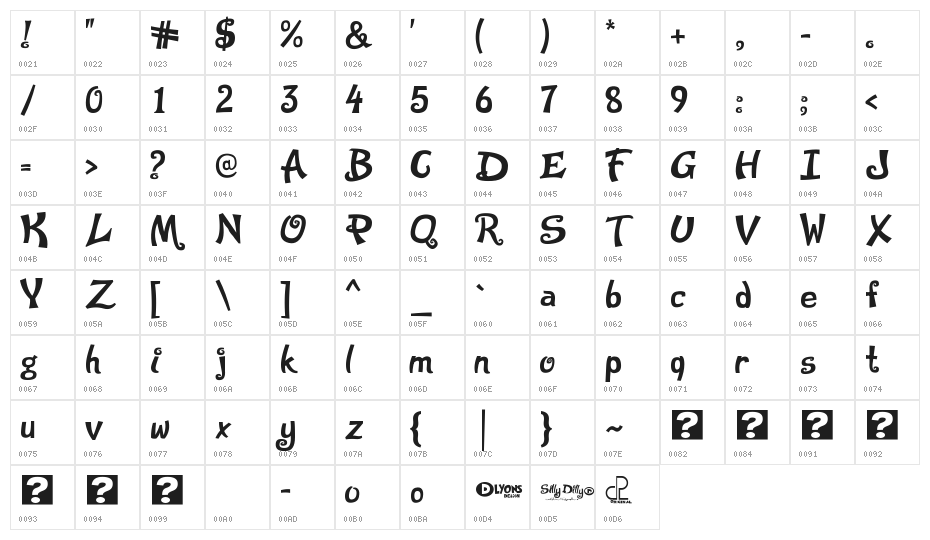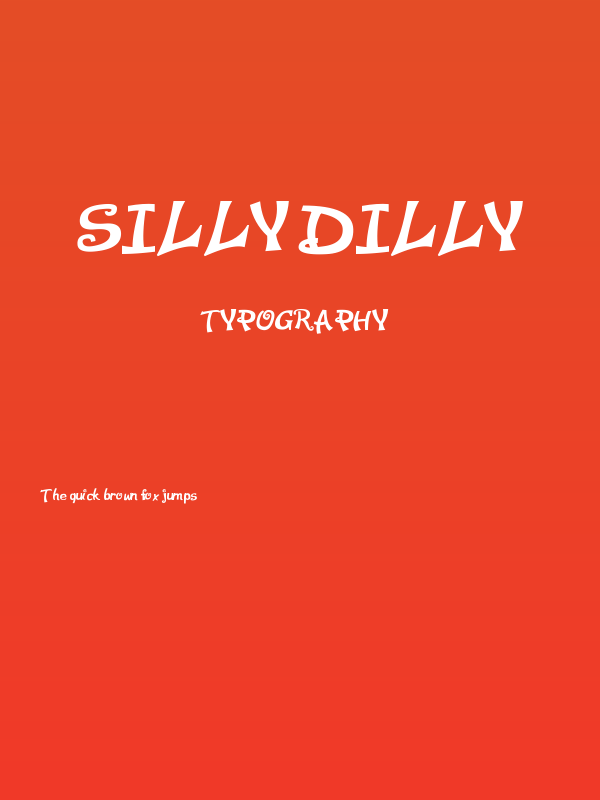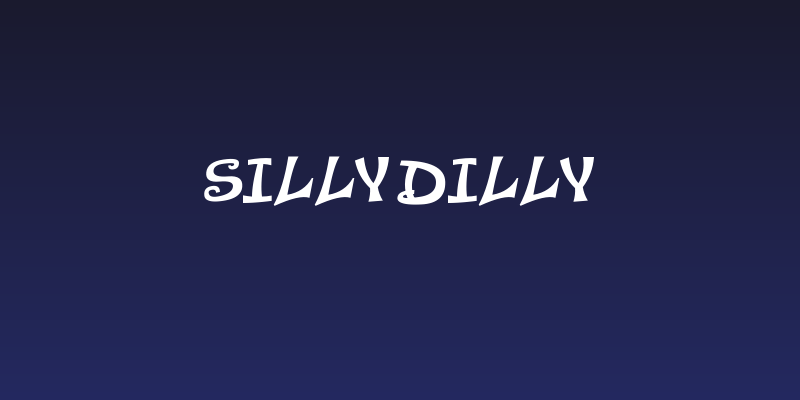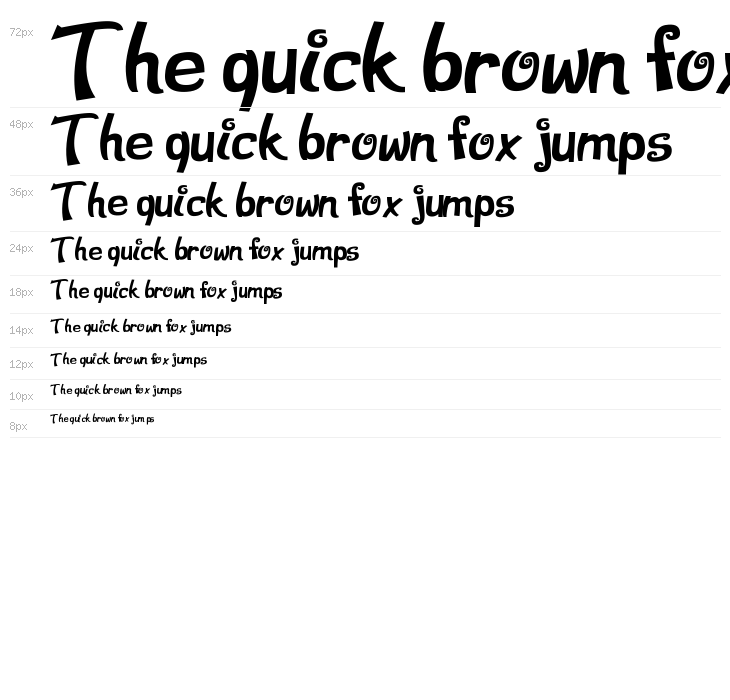
Silly Dilly Font
| Stile generale | Whimsical, Playful |
| Progetti proposti | Ideal for children's books, playful branding, party invitations, and creative posters. |